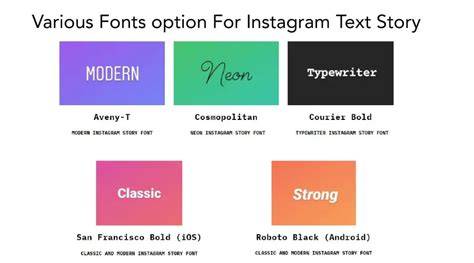
How To Use Cool Instagram Fonts For Your Posts In 2023
Do you want to stand out from the crowd on Instagram? If you’re looking for ways to captivate your followers, why not try out some cool Instagram fonts?
Instagram fonts are a great way to make your posts look unique and stylish. Whether you’re creating a post for your business or just want to make your profile stand out, using different fonts can help you get noticed.
In this article, we’ll show you how to use cool Instagram fonts in 2023. Read on to learn more!
What are Instagram Fonts?
Instagram fonts are unique typefaces that you can use in your posts. They’re made specifically for Instagram, so they’ll look great on the platform.
Since Instagram only allows you to use the same font for all your posts, using different fonts can help you stand out from the crowd. There are a variety of Instagram fonts that you can choose from, so you’ll be able to find one that suits your style.
Where to Find Instagram Fonts?
How to Use Instagram Fonts?
Using Instagram fonts is easy. All you need to do is copy the font code and paste it into your post.
Once you’ve copied the font code, you can change the font size and color to match your post. You can also use the font code to create different font styles.
Tips for Using Instagram Fonts
When using Instagram fonts, there are a few things to keep in mind. Here are a few tips to help you make the most out of your posts:
- Make sure the font you choose is easy to read. The last thing you want is for your followers to struggle to read your post.
- Be aware of the size of the font. Too small and it won’t be readable, too large and it will take up too much space.
- Choose a font that’s appropriate for your post. For example, if you’re posting about a serious topic, you may want to use a more formal font.
- Don’t overuse fonts. Too many fonts in one post can make it look cluttered and unappealing.